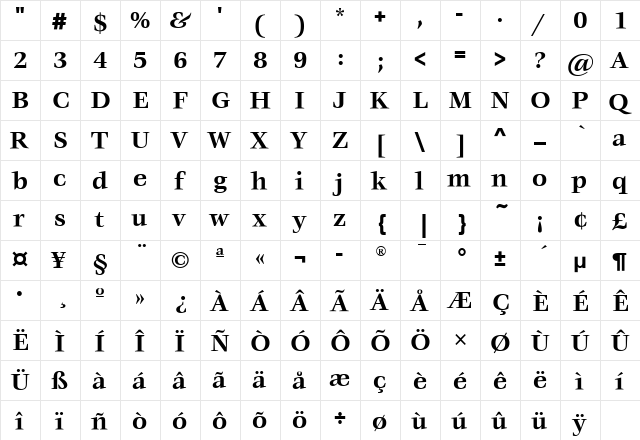
VeljovicITC Bold Font Preview
VeljovicITC Bold
VeljovicITC Bold Font Details
Design Context for VeljovicITC Typeface
VeljovicITC offers clean, dependable letterforms without strong stylistic allegiance, making it a practical choice for designers who need flexibility. Its bold stroke weight gives it real presence on the page.